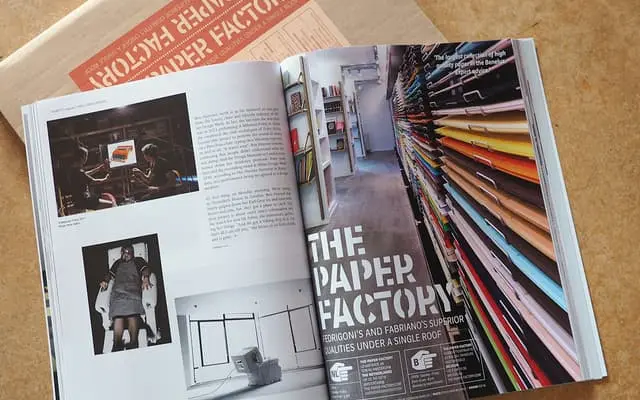
Plan Grotesque Condensed
The condensed width of Typotheque's Plan Grotesque system, offering four weights with matching italics for space-constrained settings.
Plan Grotesque Condensed is the narrow companion to Typotheque's Plan Grotesque, sharing the same four-weight structure from Light to Bold with corresponding italics. The system is structured for broad deployment, with individual styles named after cities including Amsterdam, Bengaluru, Copenhagen and Guangzhou. Together the two widths form a cohesive grotesque system suited to editorial, signage and interface work where width flexibility matters.
A condensed grotesque sans-serif, part of the wider Plan Grotesque system which includes both standard and condensed widths across multiple weights with italics.